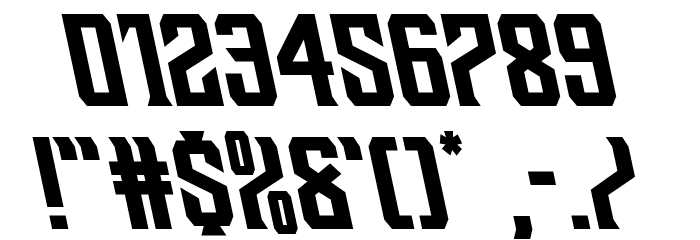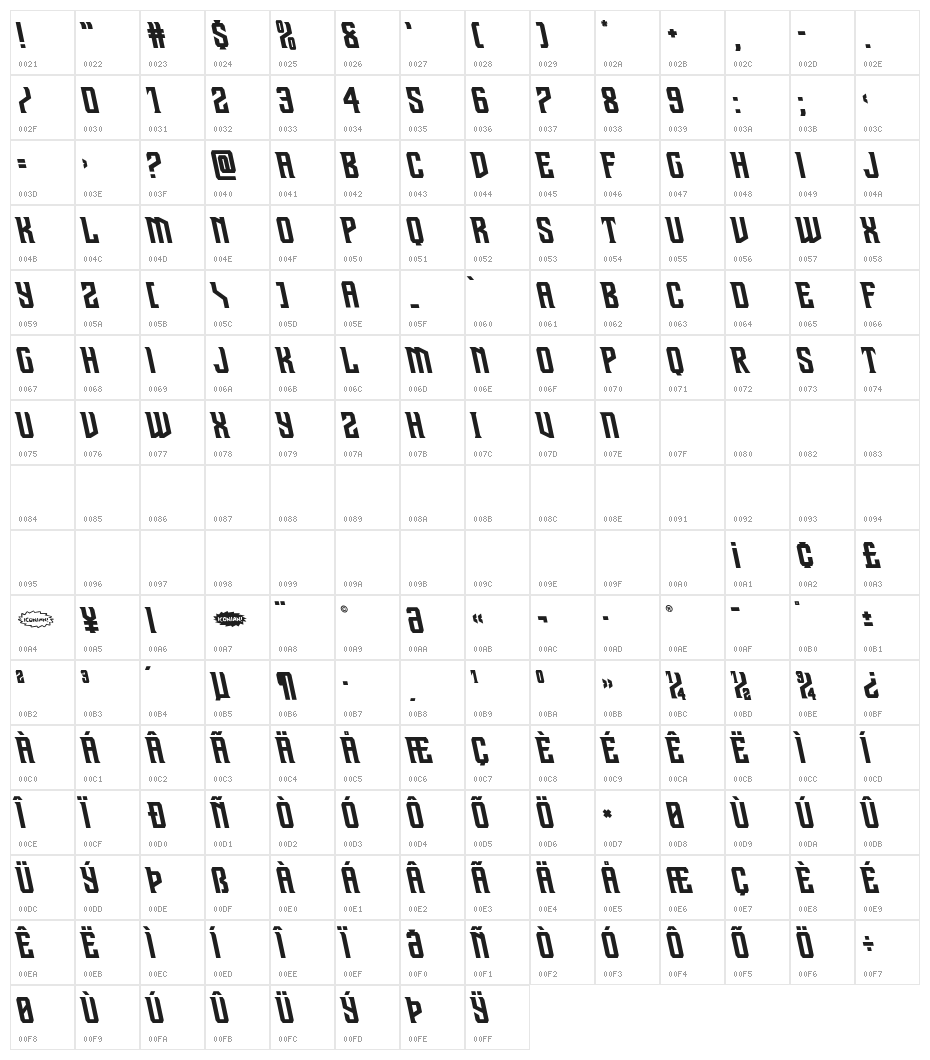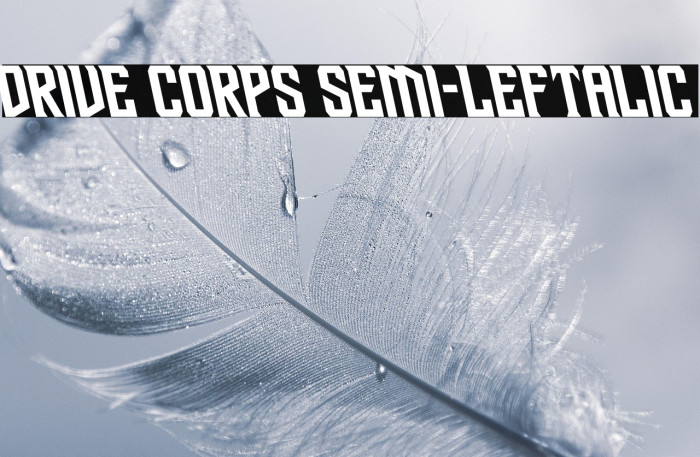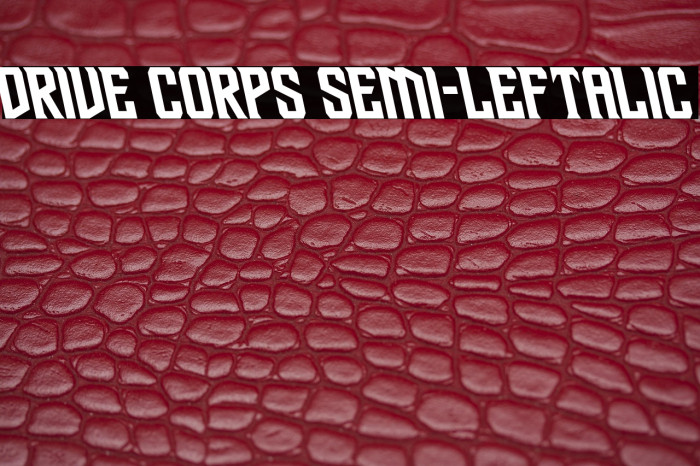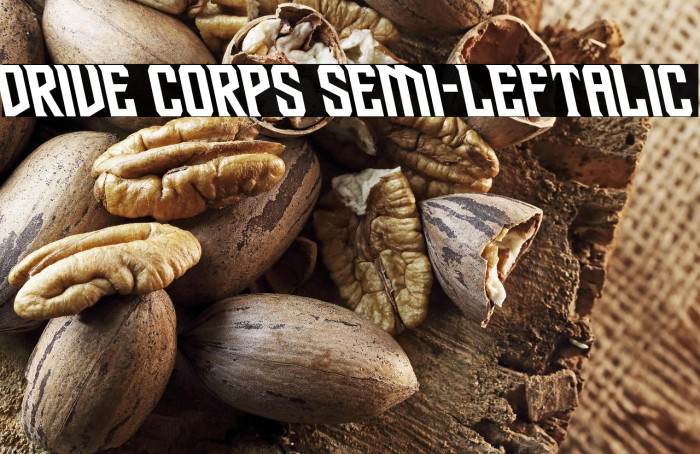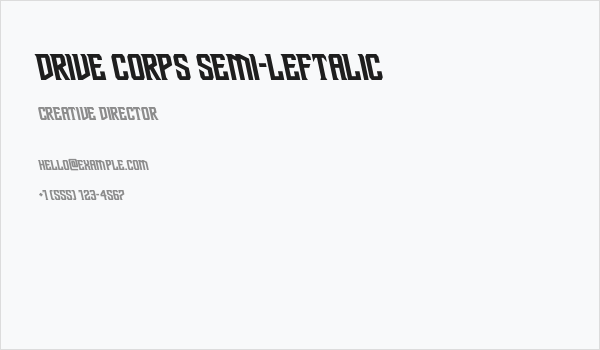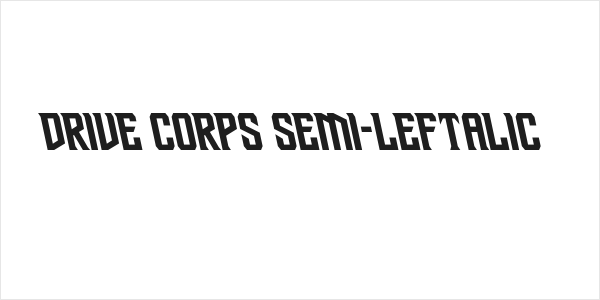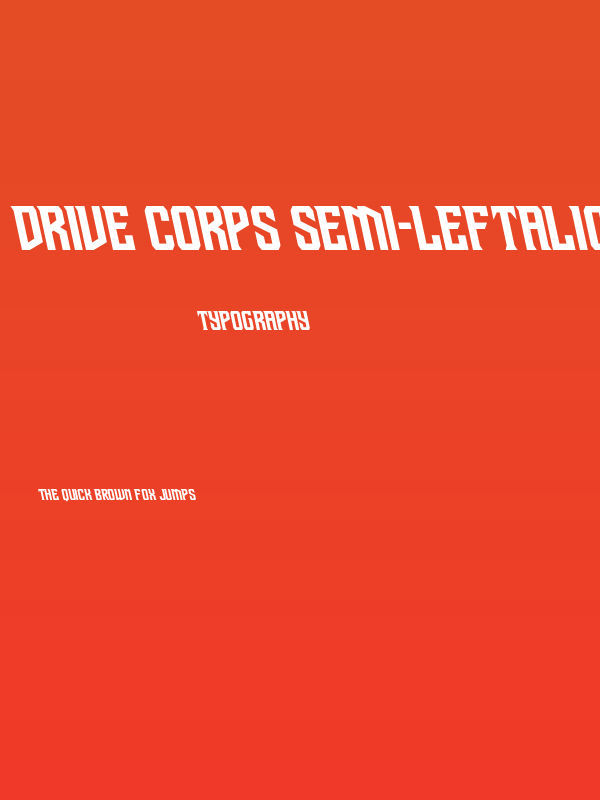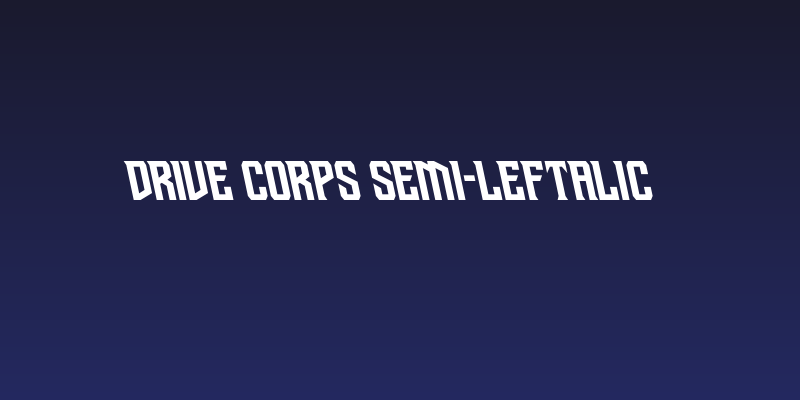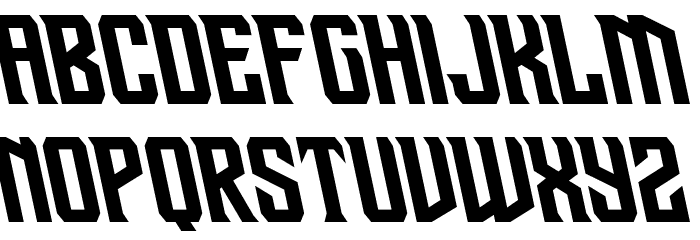
Drive Corps Semi-Leftalic Font
Drive Corps Semi-Leftalic Description
This font features a bold and dynamic design with a distinct slant, giving it a sense of motion and energy. The characters are angular and geometric, with sharp edges and a consistent stroke width that conveys strength and modernity. The uppercase and lowercase letters maintain a uniform style, while the numerals and special characters complement the overall aesthetic. The font's structure is solid and impactful, making it suitable for attention-grabbing headlines and designs that require a strong visual presence.
| Proposed Projects | Ideal for sports branding, action movie posters, video game titles, and dynamic advertising campaigns. |